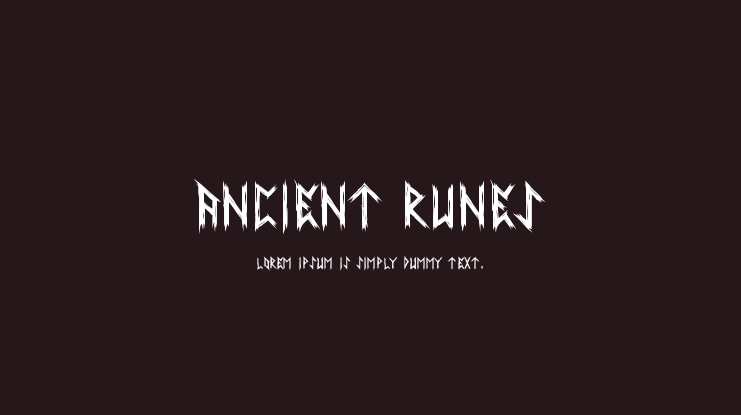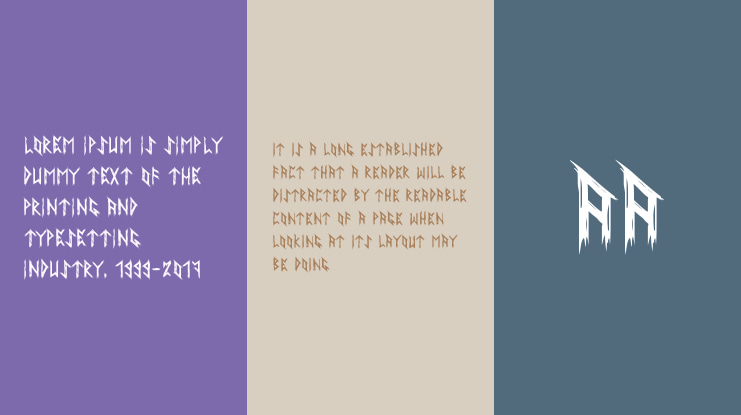
Ancient Runes Font
Version 1.1 from July 03, 2015 Incl. English, European letters and Numbers. Kind of nordic font, or my vision of font based on rune shapes. LICENSE: 100% Freeware. No modify.